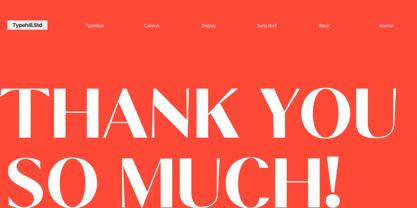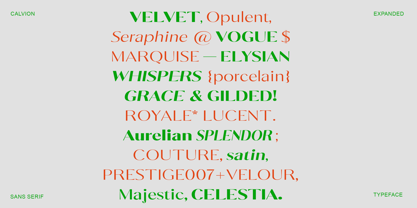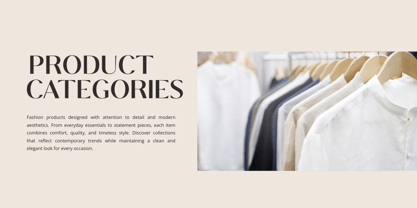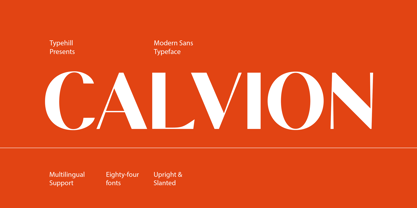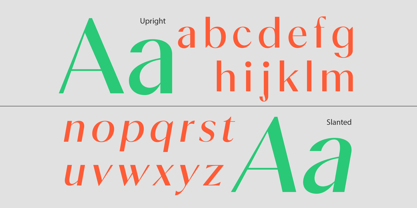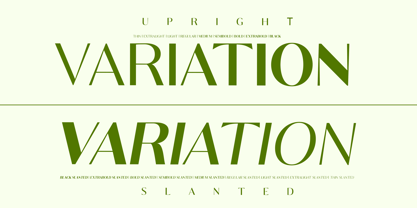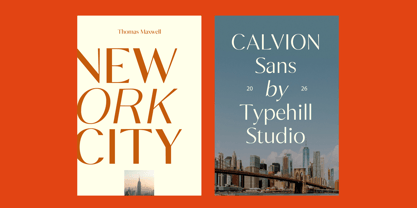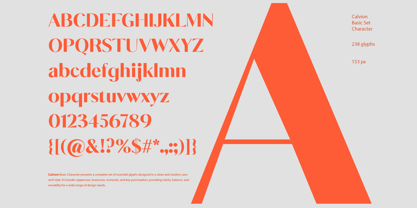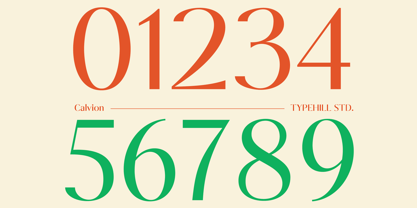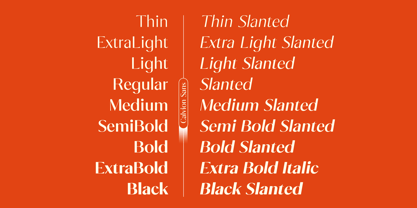
Calvion Sans
by Typehill Studio
The Calvion Sans Font Family was designed by Teuku Fahruddin and published by Typehill Studio. Calvion Sans contains 85 styles and family package options. More about this family
Calvion is a modern sans serif typeface designed with clarity, balance, and contemporary character. Built with clean lines and refined proportions, it delivers a confident and versatile voice for a wide range of design applications. This typeface works beautifully for branding, editorial layouts, advertising, packaging, and digital interfaces. Its structured forms and modern aesthetic make it suitable for both bold headlines and sophisticated visual compositions. Calvion comes with Eighty-four styles, including upright and slanted versions, providing designers with a flexible system for creating dynamic typography. With broad multilingual support, it is ready for global communication and modern brand identities. Carefully crafted with attention to detail, Calvion combines simplicity and functionality, making it a reliable choice for contemporary design projects.
Designers: Teuku Fahruddin
Foundry: Typehill Studio